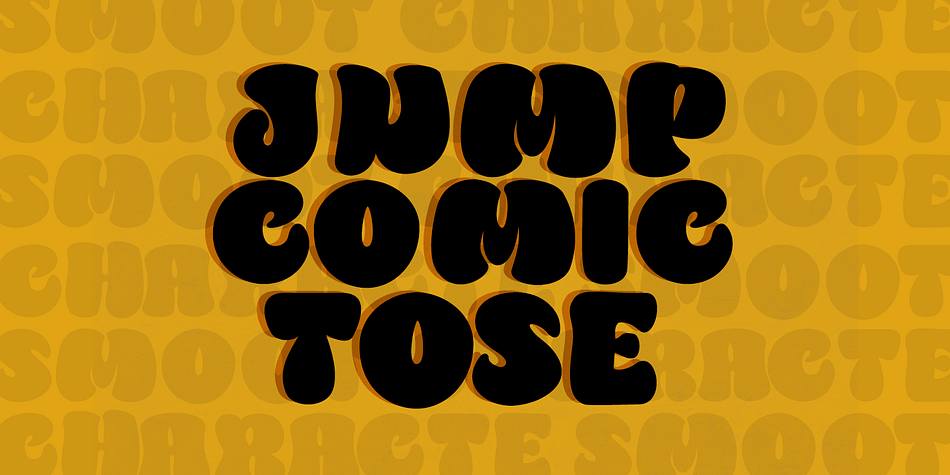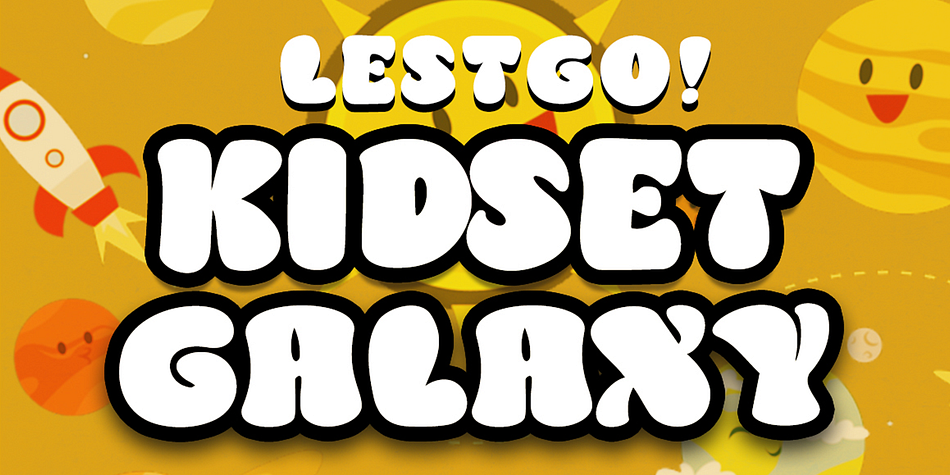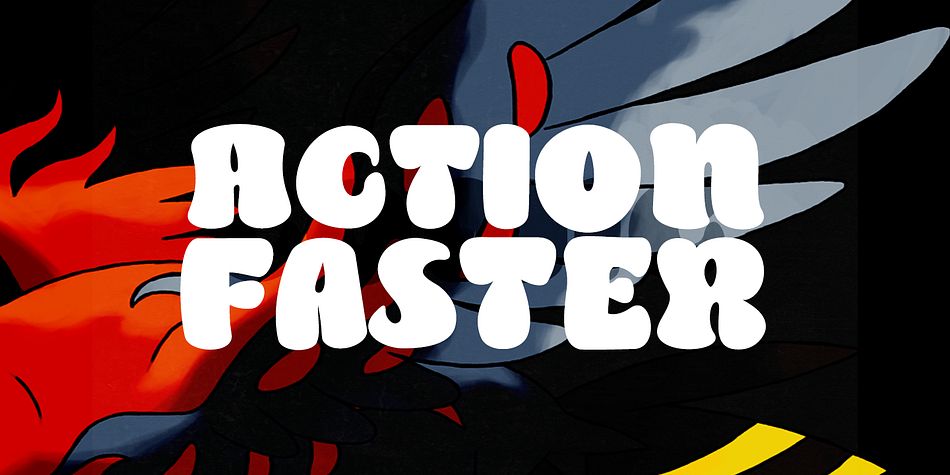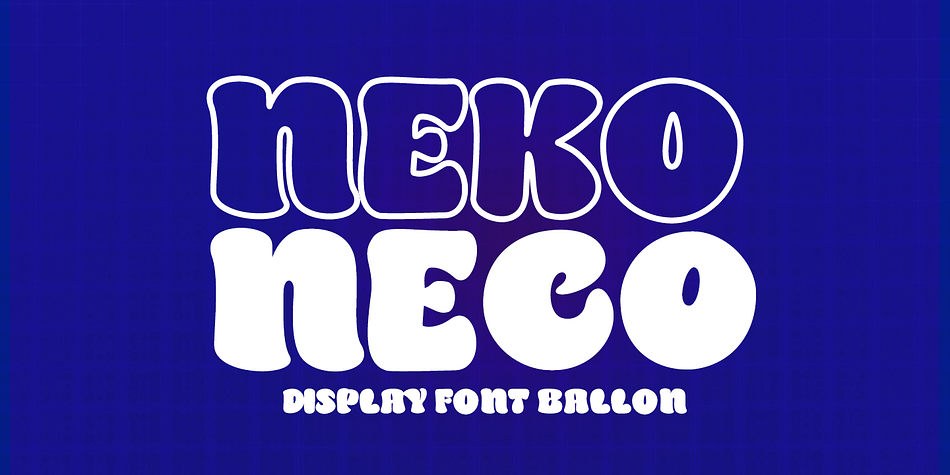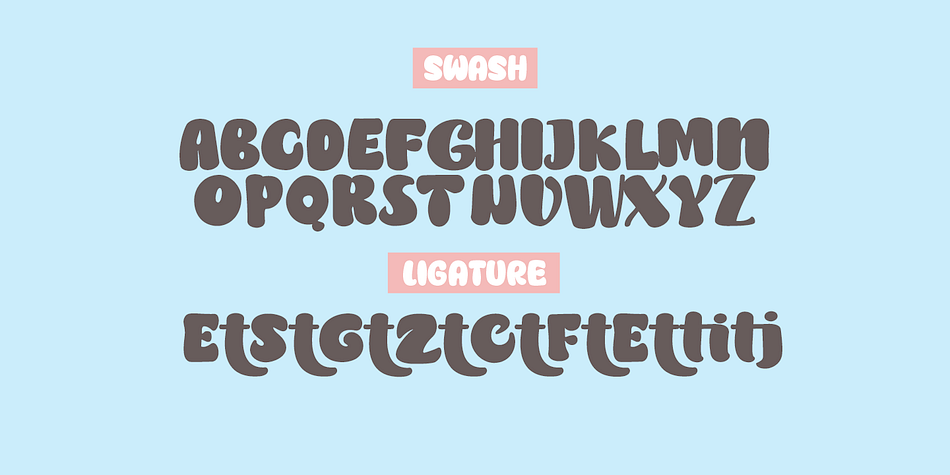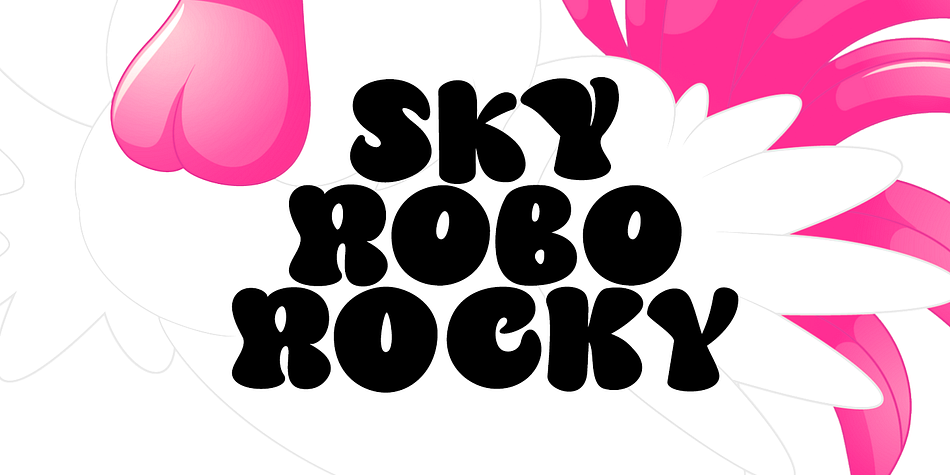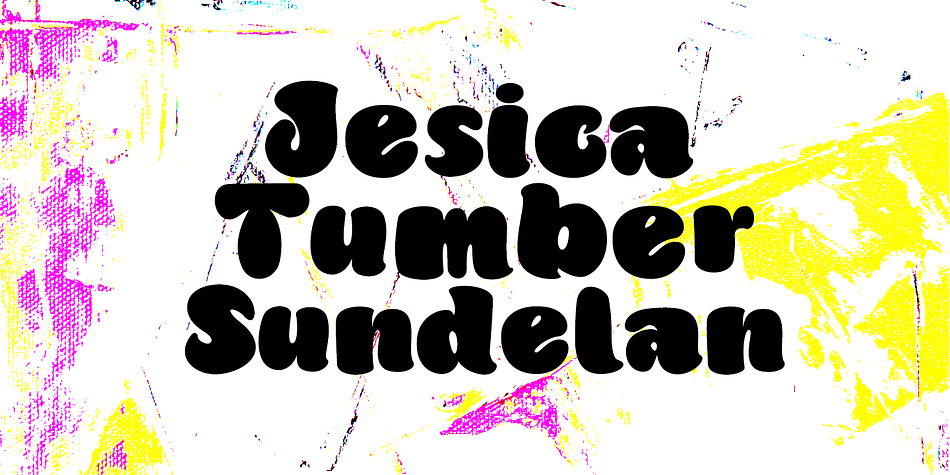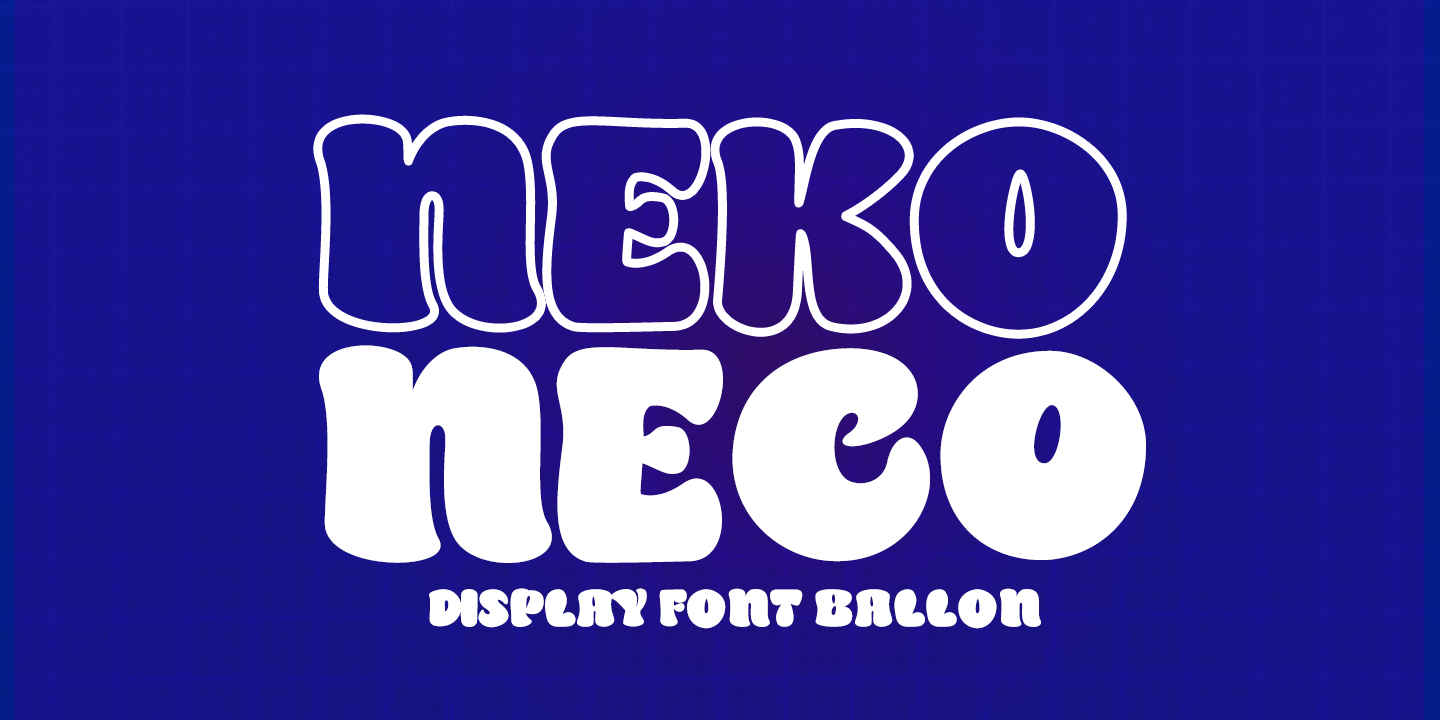
Neko Neco
Neko Neco is a retro font family published by Gatype.
Neko Neco is a cute and naturally styled comic balloon display font suitable for logos, branding, greetings, social media themes, and birthday invitation designs. The font is suitable for children and cheerful events.
. Swash